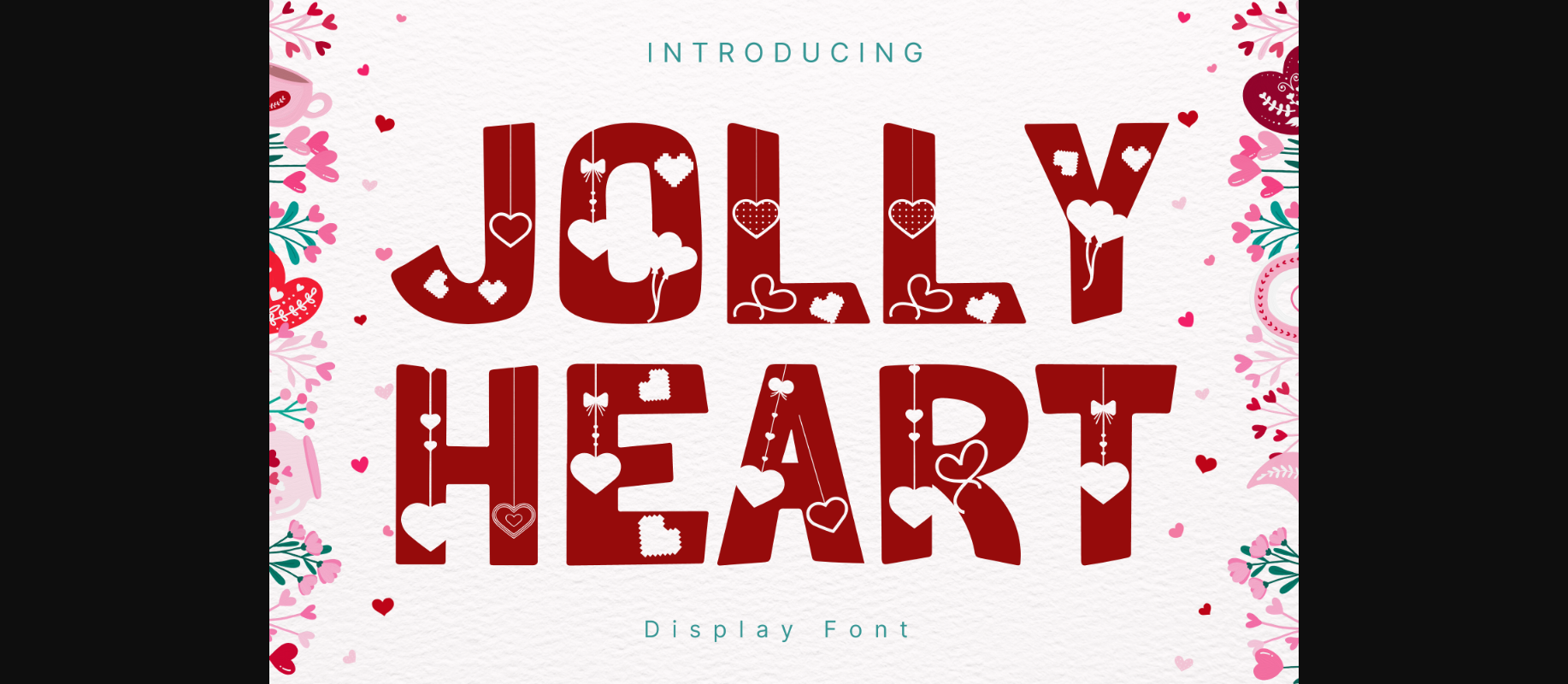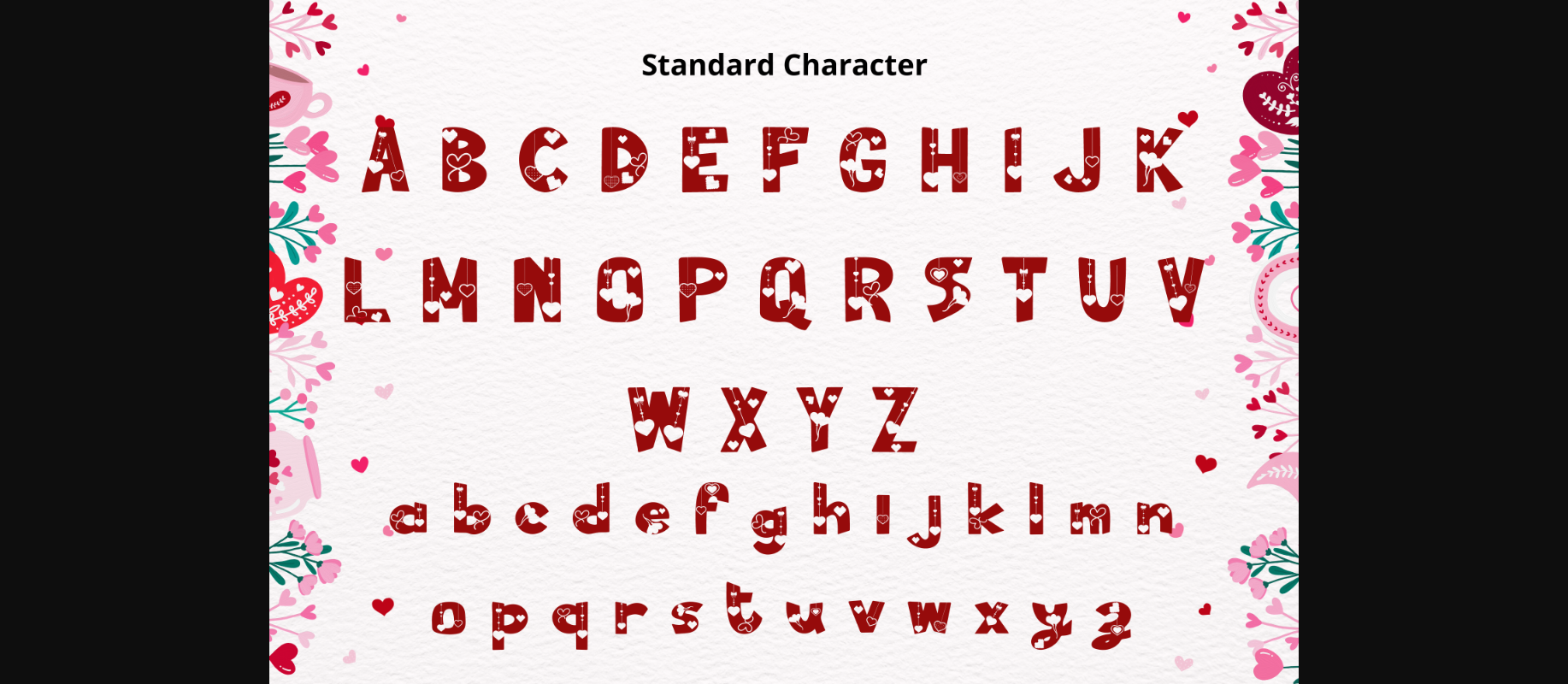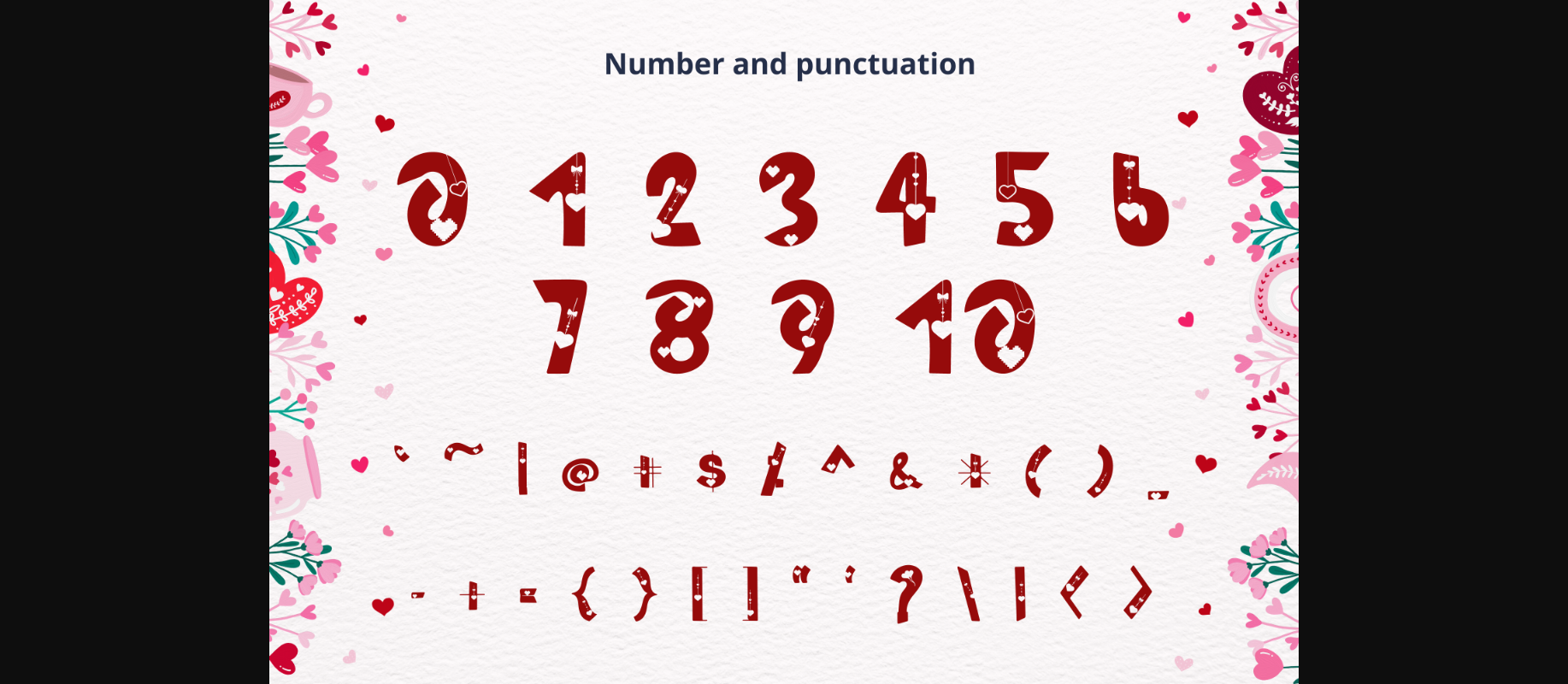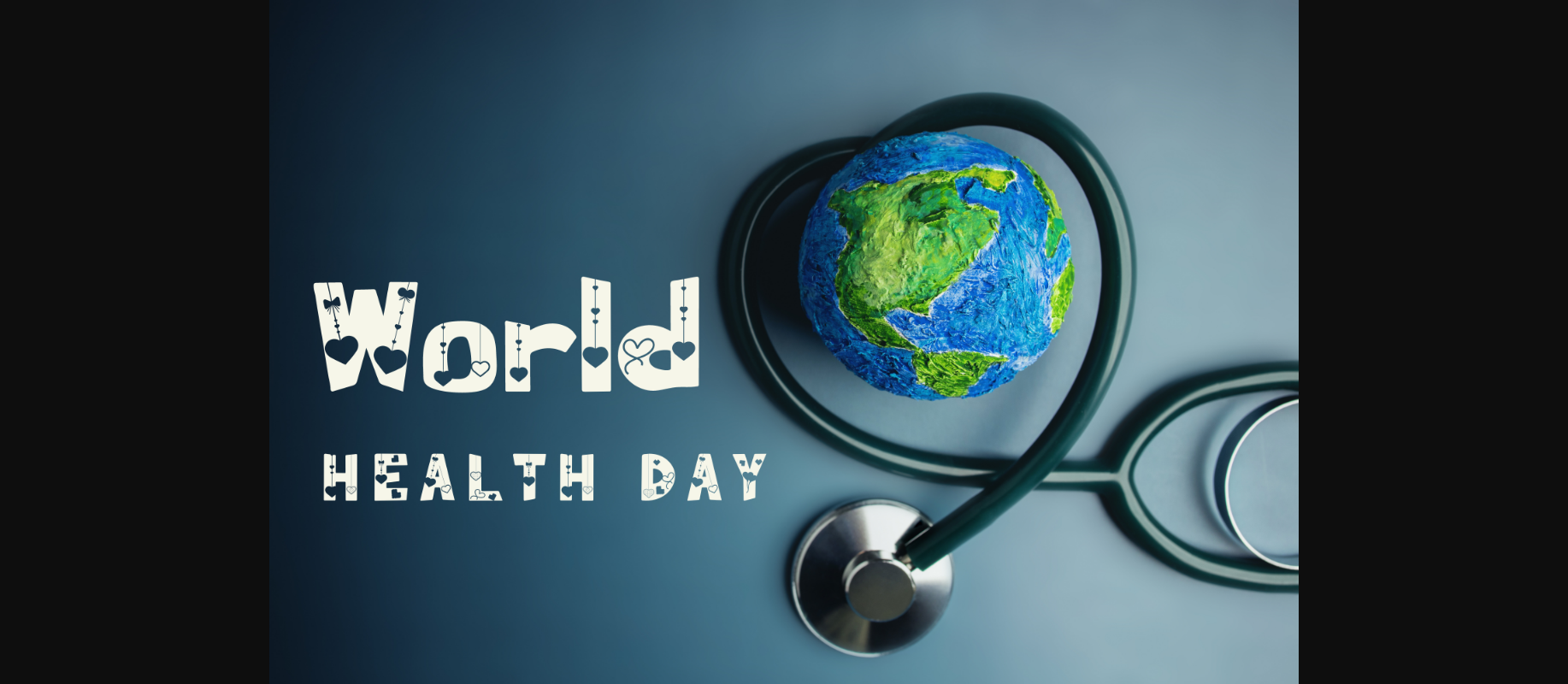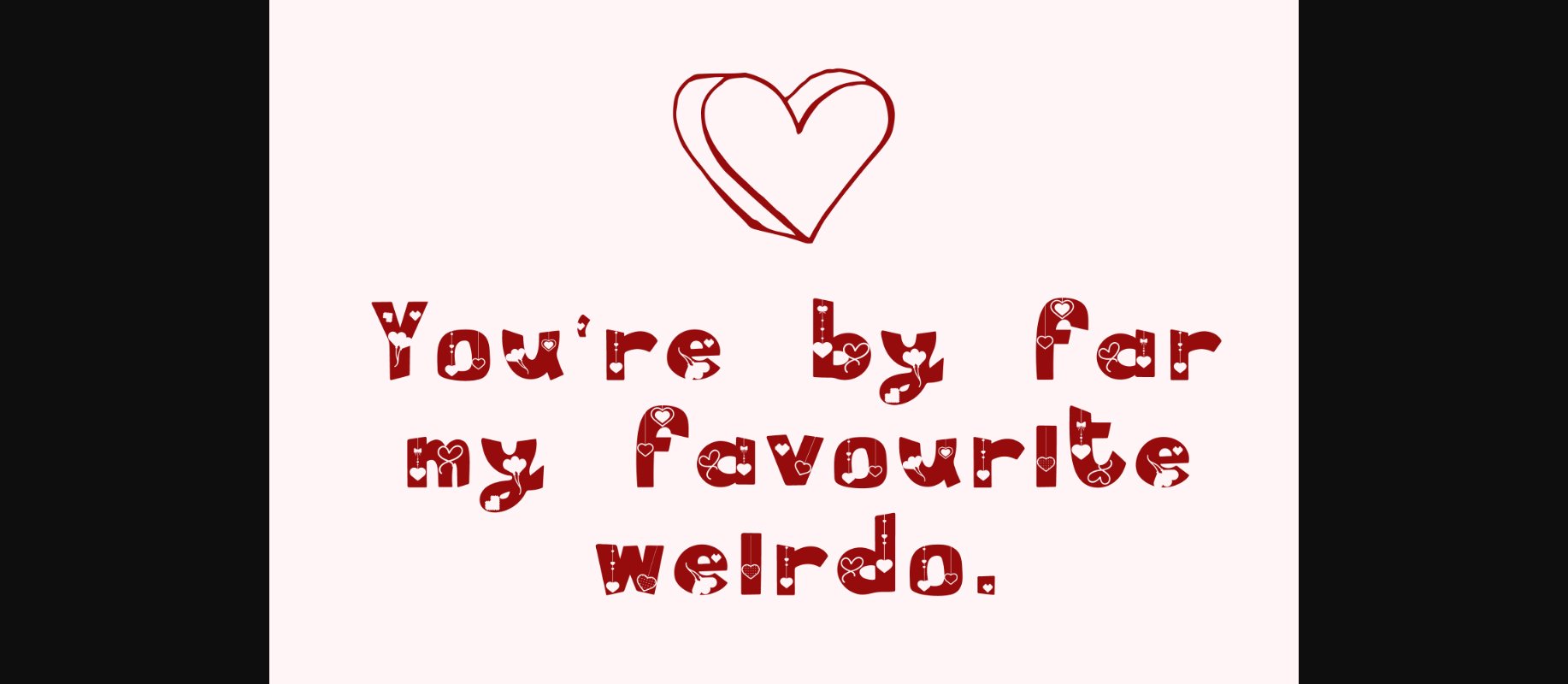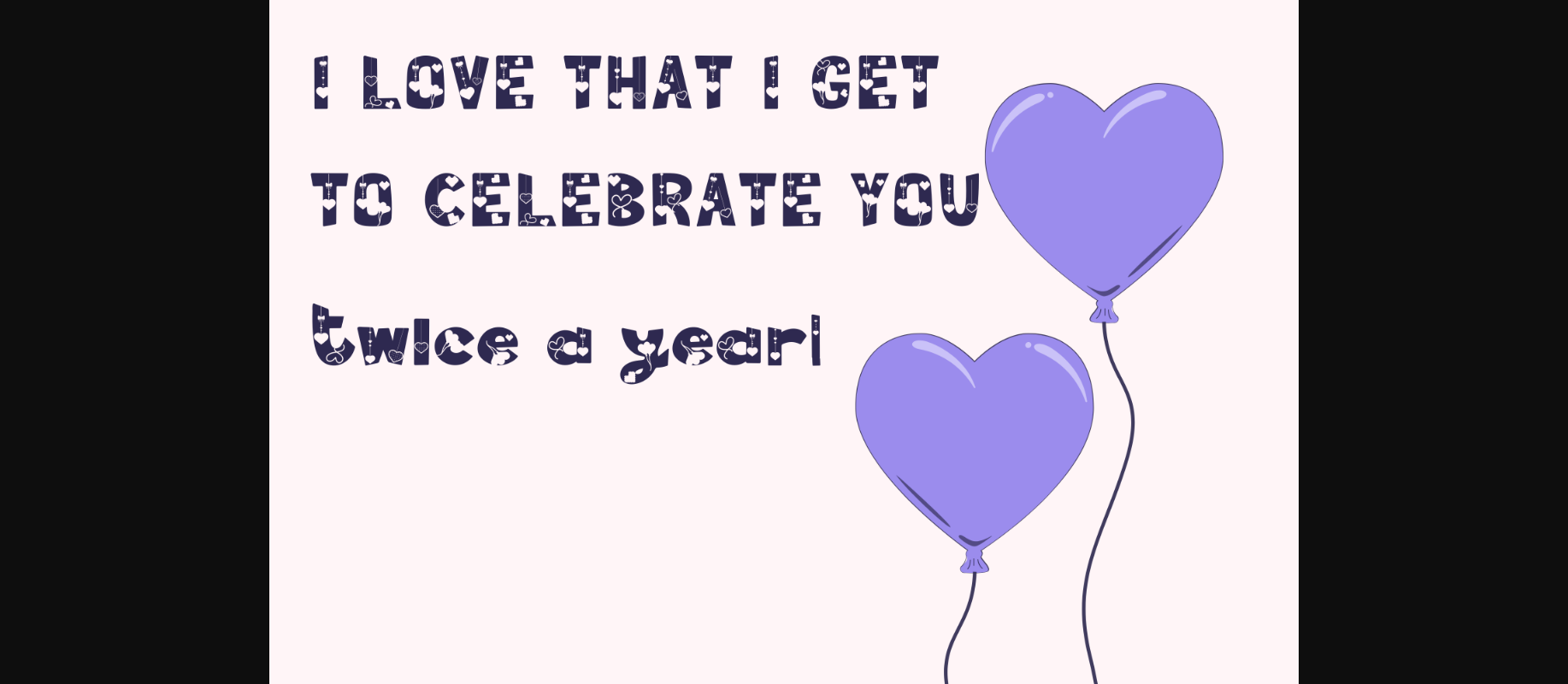
About Jolly Heart Font
Jolly Heart is a whimsical and festive decorative font. It can easily be matched to an incredibly large set of projects, so add it to your creative ideas and notice how it makes them stand out!